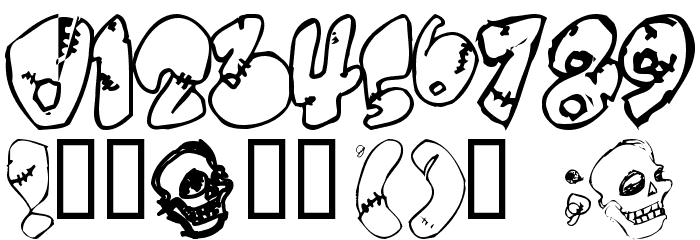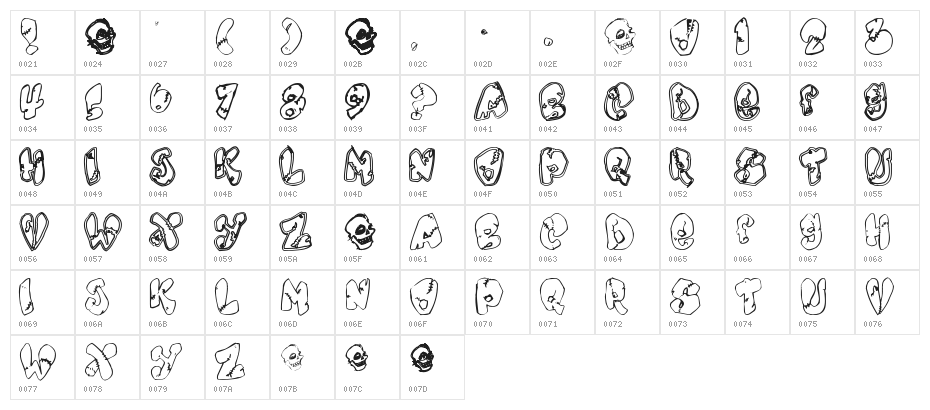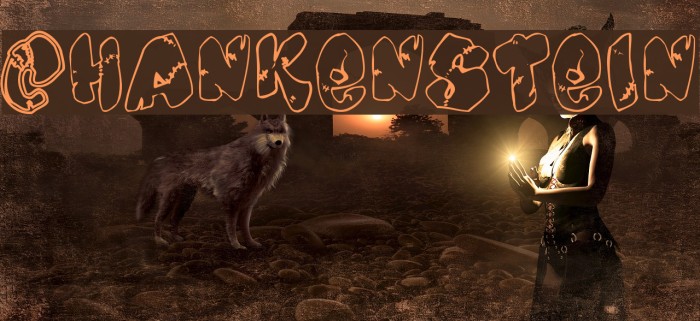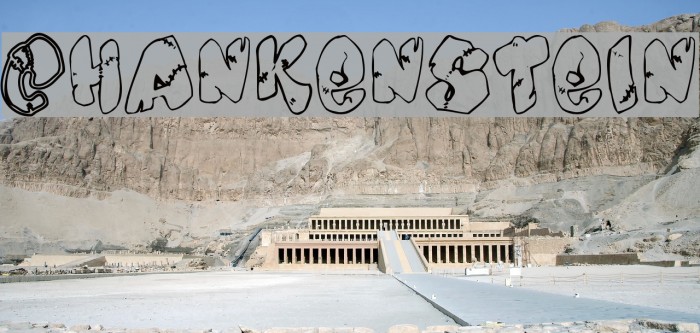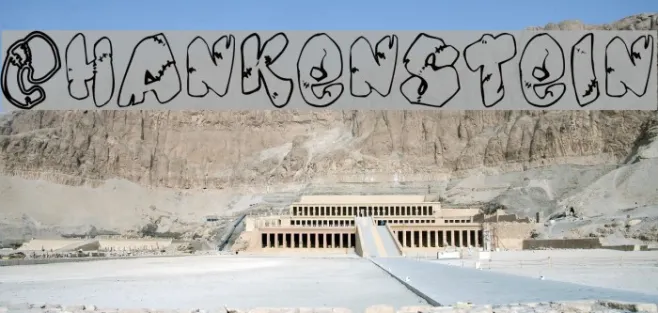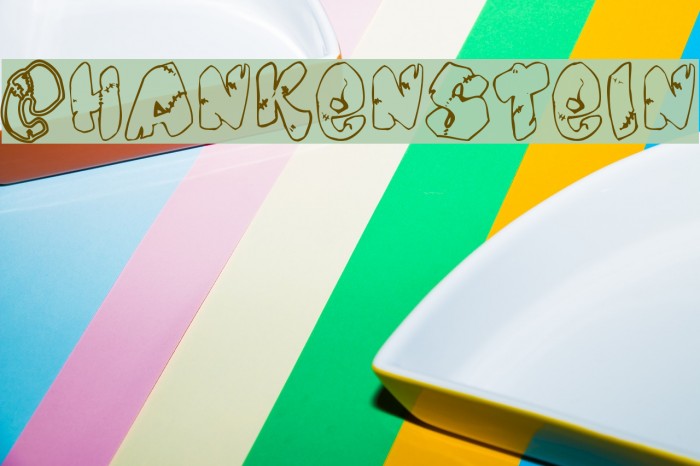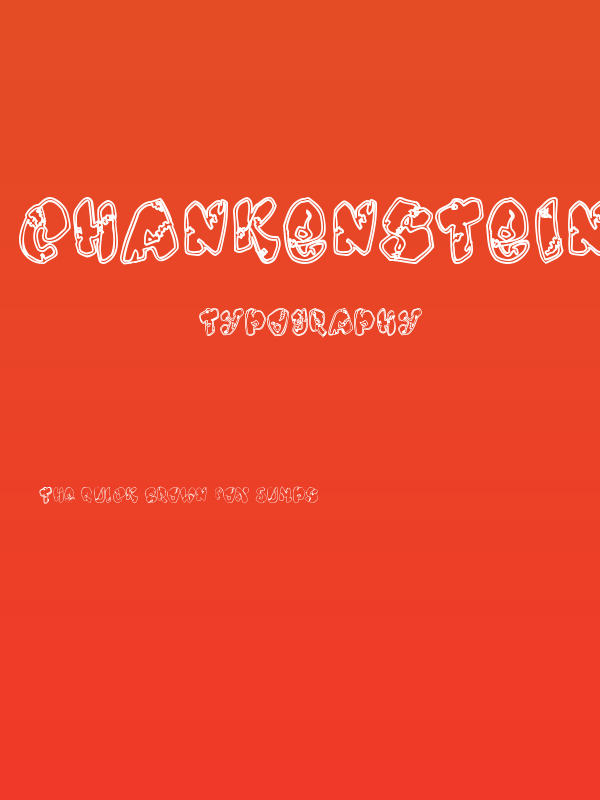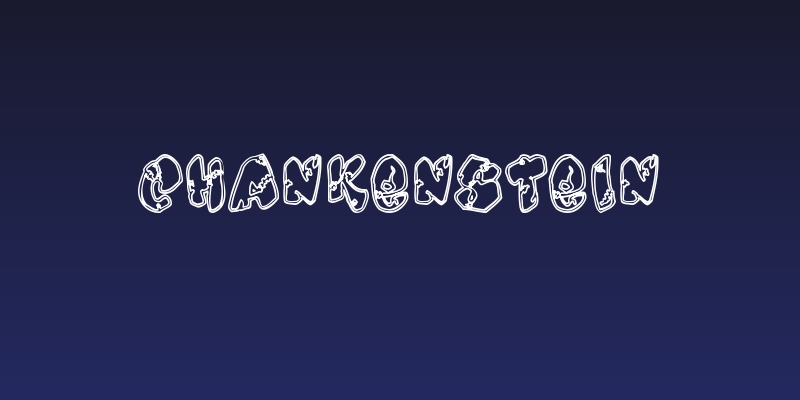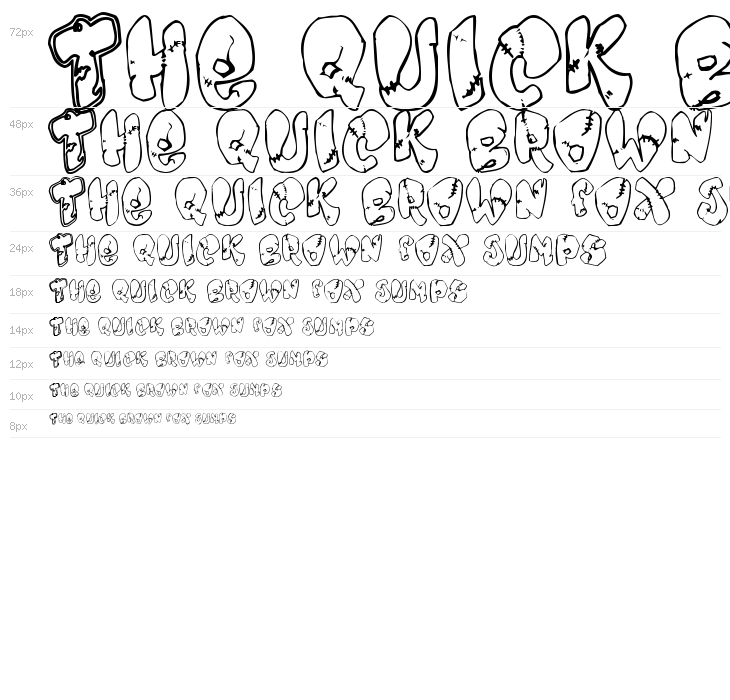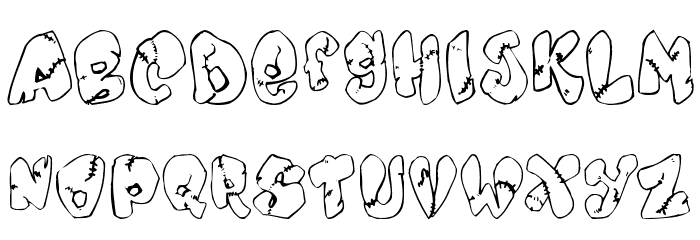
Chankenstein Font
Chankenstein Description
This font features a playful and spooky design, reminiscent of classic horror themes. Each character is uniquely styled with jagged edges and patchwork details, giving the impression of being stitched together. The bold, cartoonish appearance is enhanced by irregular shapes and a hand-drawn aesthetic, making it perfect for Halloween-themed projects. The numbers and special characters maintain the same quirky style, with some incorporating skull motifs and other eerie elements. This font captures a sense of fun and creativity, ideal for designs that require a touch of the macabre.
| Proposed Projects | Ideal for Halloween invitations, themed posters, children's book covers, and creative branding. |